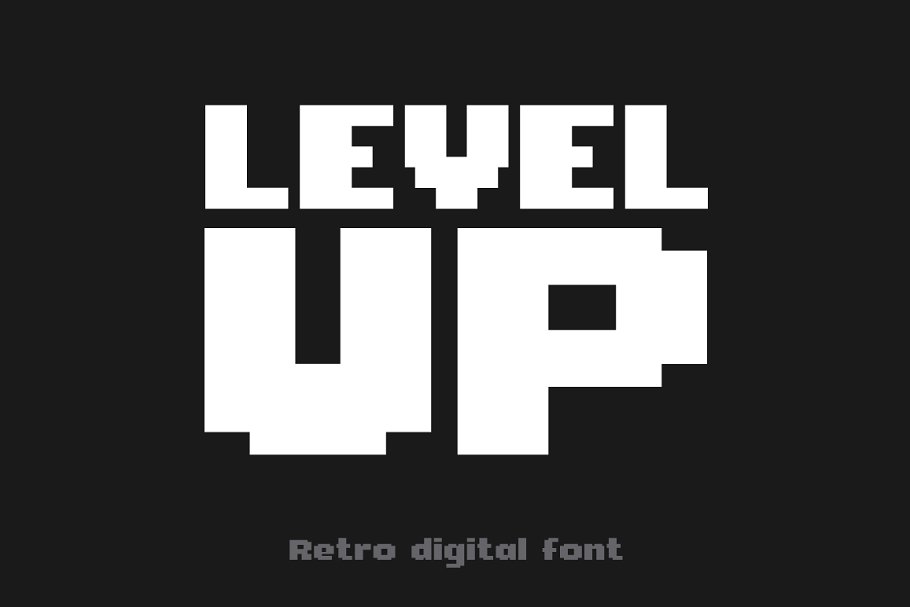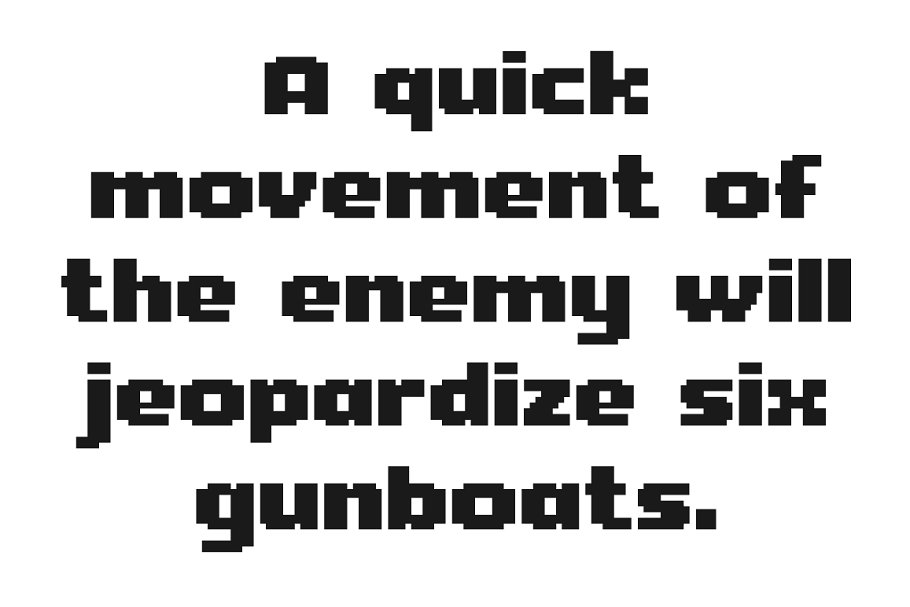
About the Level Up Font
Geometric font with authentic digital feeling, Basic latin character setCaptial lettersLowercase lettersNumeralsCurrency (USD, EUR)Punctuation and some special charactersTTF and OTF files,